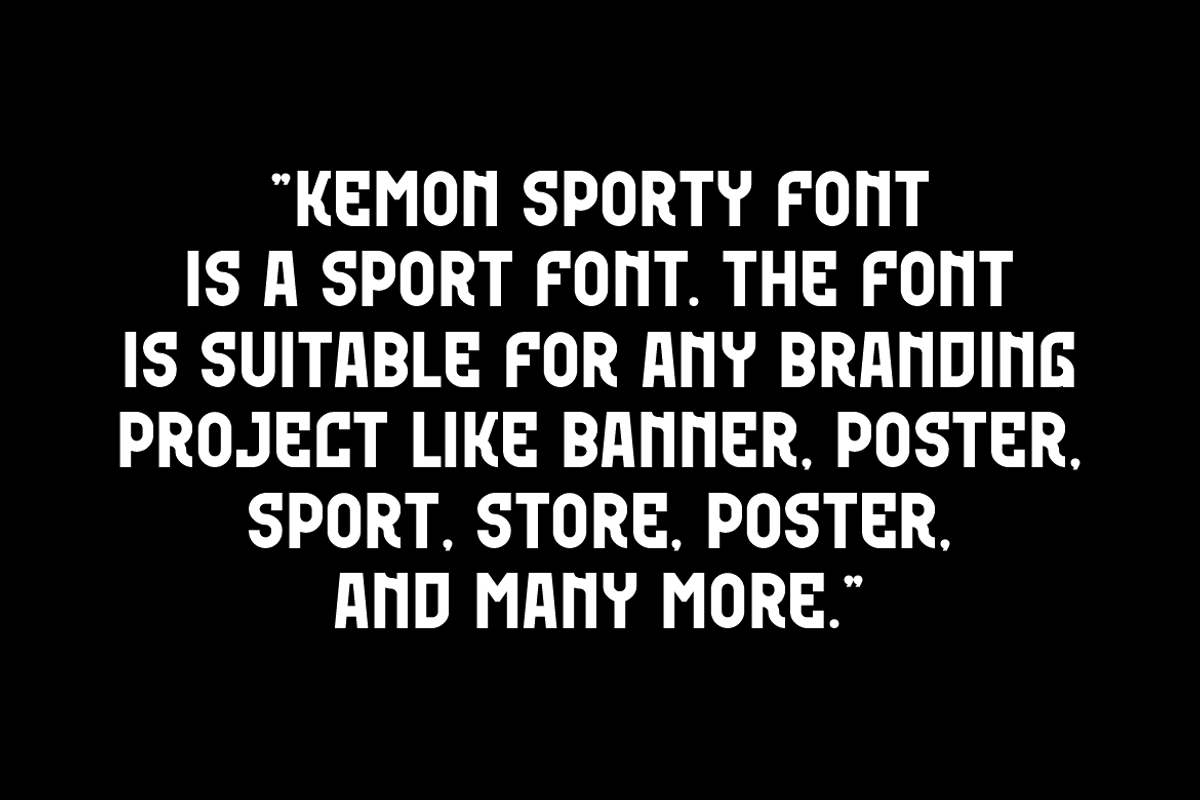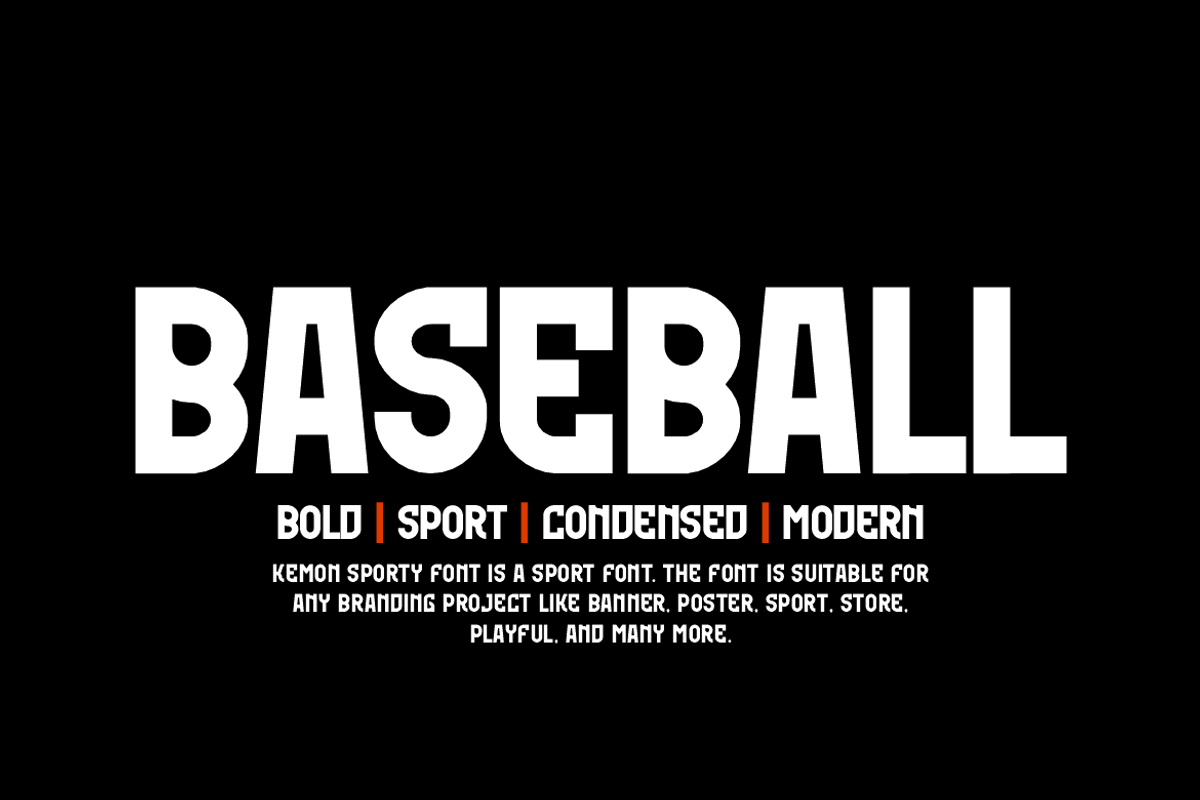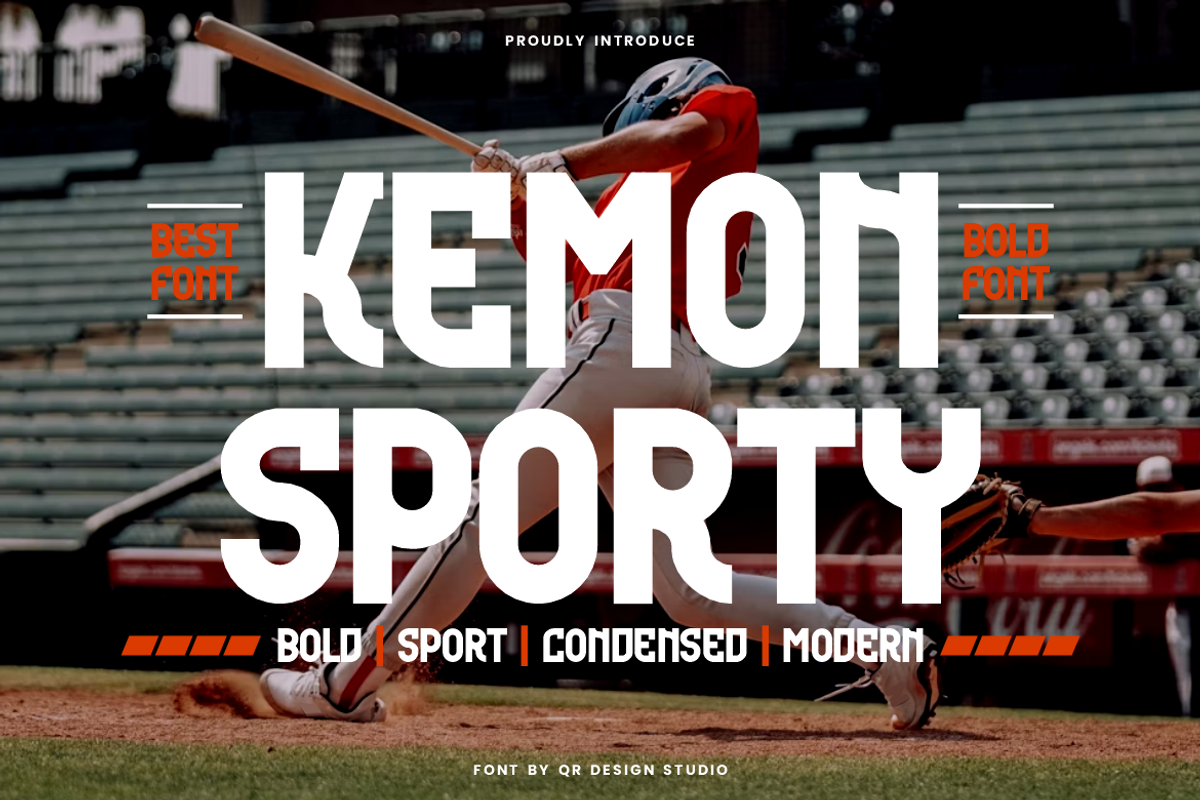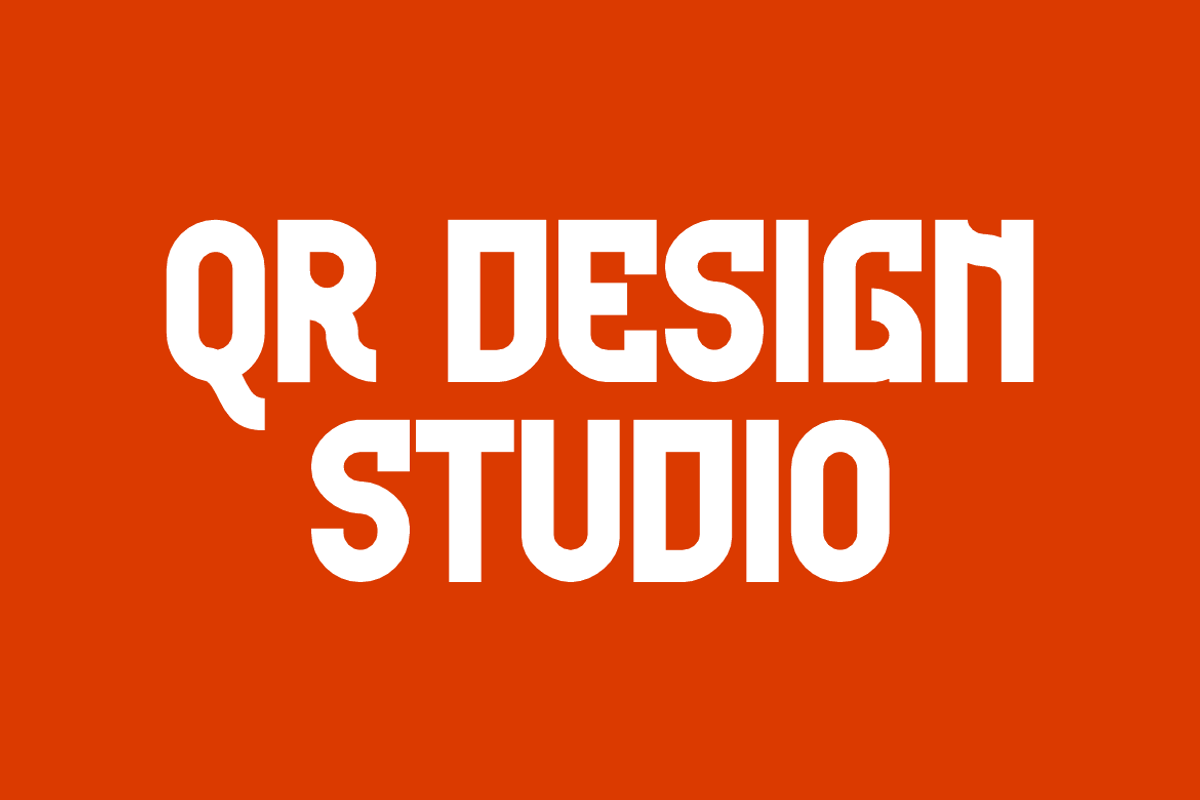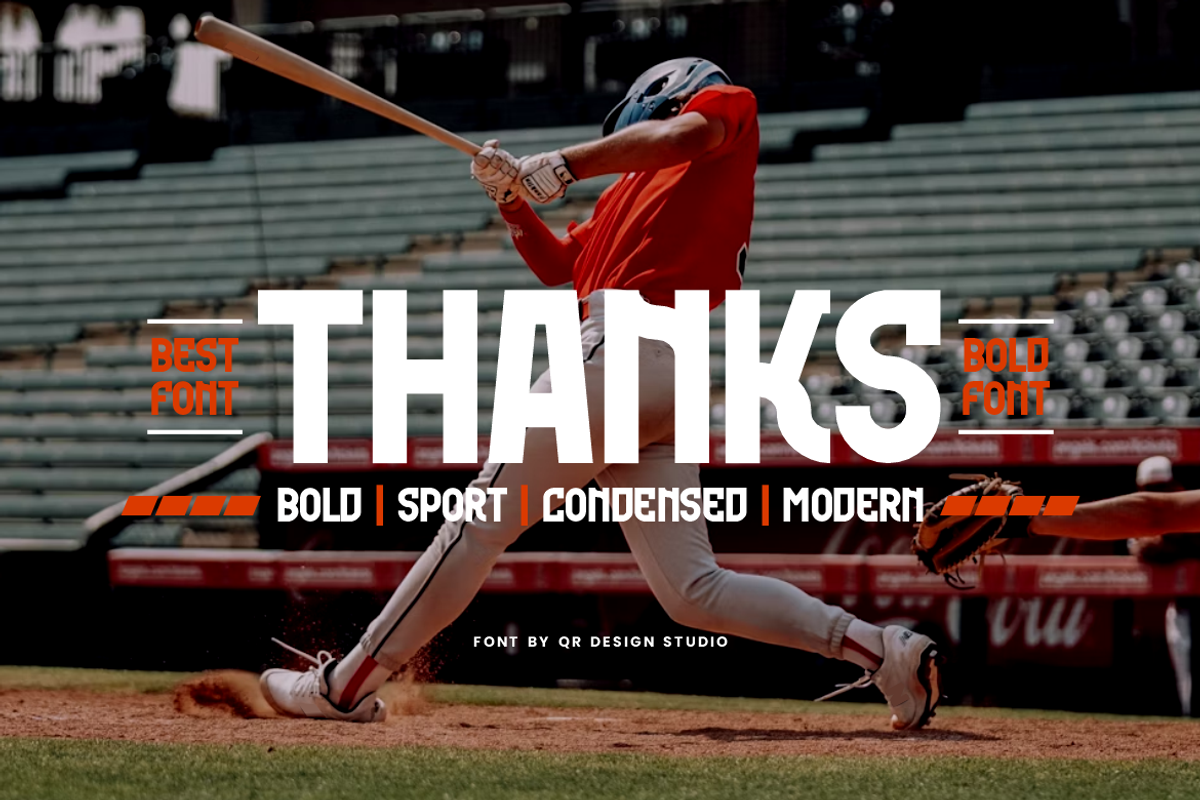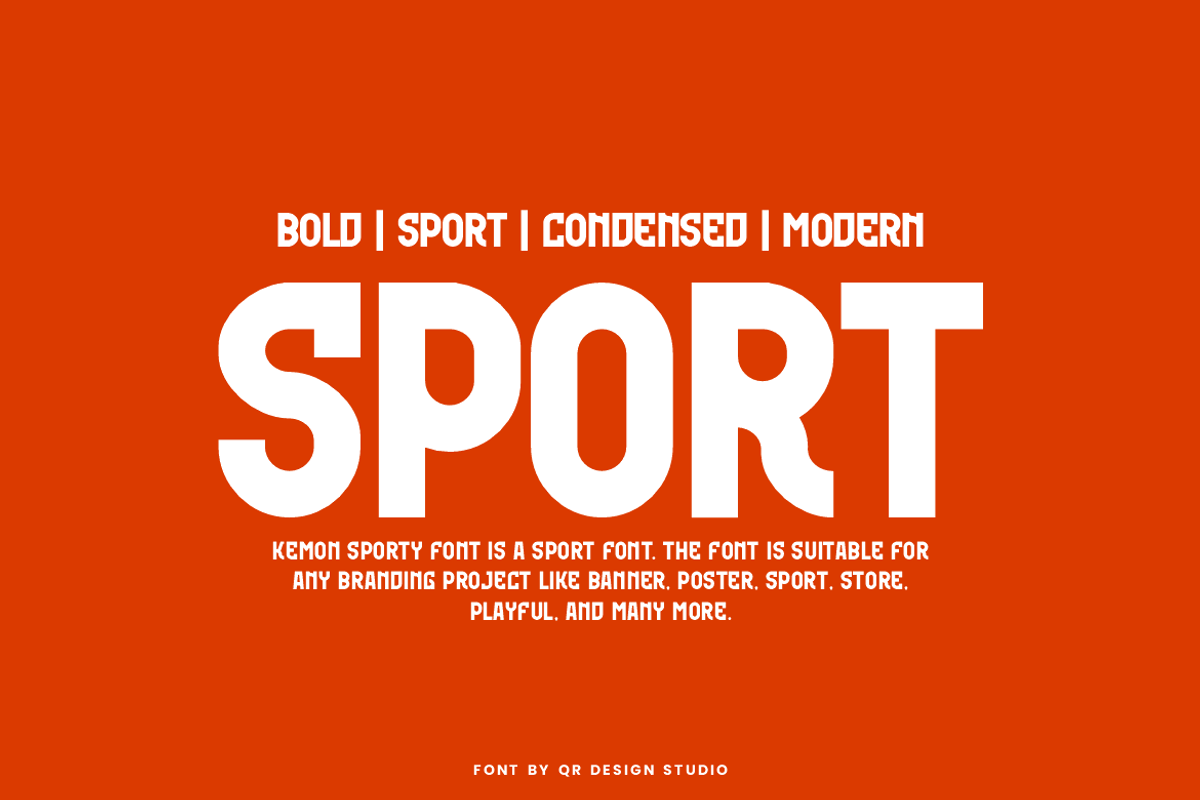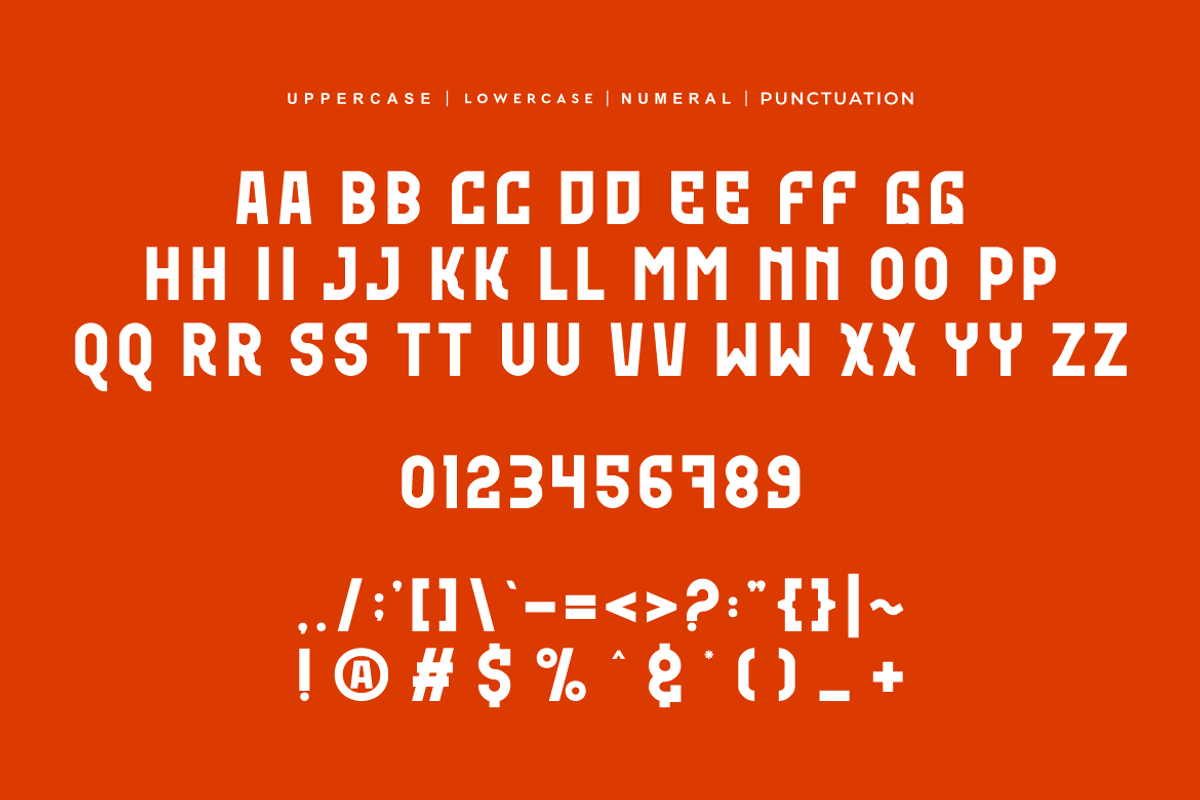
Kemon Sporty - Baseball Font
Kemon Sporty Font is a bold and authentic display font. The font is suitable for any branding project like poster, logo, sport, and many more. Outstanding in a wide range of contexts.